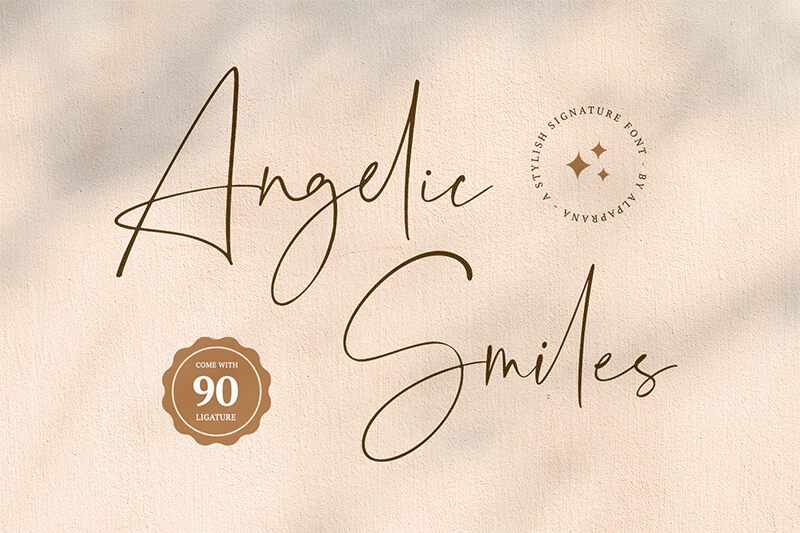
Angelic Smiles
Both simple and sophisticated, Angelic Smiles font designed by Alpaprana Studio is well-defined as handwritten and as signature font design. It's rather a script style font with soft strokes that delightfully wrap around the sophisticated mood while ensuring it's easy to the eye. It’s appealing because it’s light and still informal, but at the same time, it has class. Angelic Smiles is also called Grace under pressure because it is elegant but does not over power the composition.
Due to its elegant gothic capitals and light-weighted style, Angelic Smiles font is suitable for a wide range of designer's applications such as personal identity elements like logos or cards; messily written quotes bound with lovingly rich loops; attractive booklets containing advertisements; cards and invitations on wedding supplies; fancy exquisite script greeting cards - anywhere that you want regal elegance!